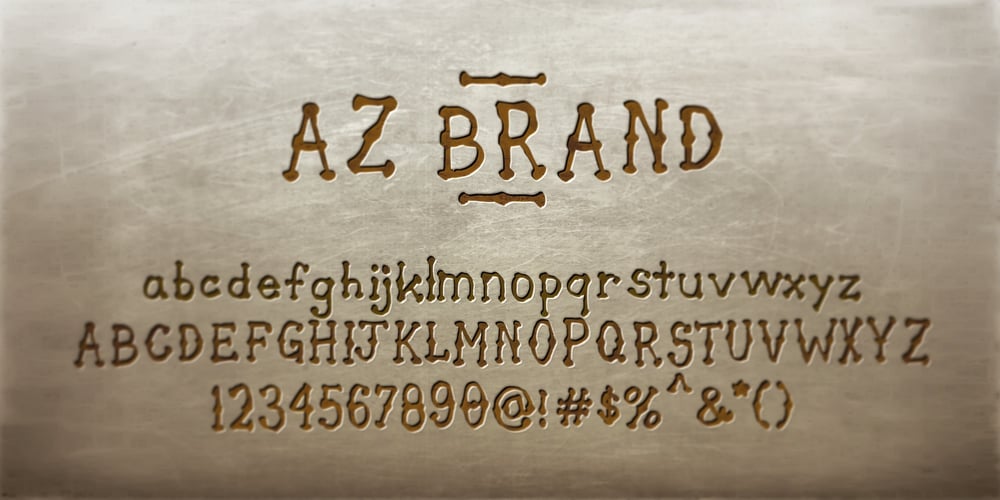
AZ Brand
AZ Brand font
AZ Brand Font Family was designed by published by Artist of Design. AZ Brand contains 1 styles and family package options. AZ Brand was inspired from a need to develop a display typeface with a hand drawn feel to it. This font was designed for use as a fun bold headline or sub headline.